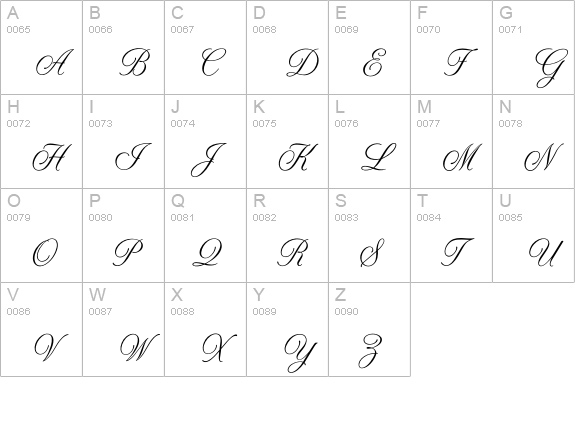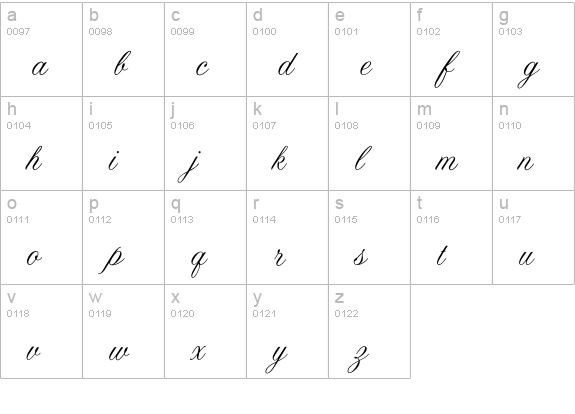
OPTIAltoGreeting-Script Font Details
Introducing OPTIAltoGreeting-Script font, a beautifully crafted typeface that exudes elegance and sophistication. This stunning script font boasts graceful curves and flowing lines, making it perfect for adding a touch of luxury to your designs. OPTIAltoGreeting-Script font is ideal for a wide range of projects, including invitations, greeting cards, branding materials, and more. Its timeless appeal and classic style will elevate any design and leave a lasting impression on your audience. Best of all, OPTIAltoGreeting-Script font is completely free to download at FontsMarket.com. Take advantage of this amazing opportunity to enhance your creative projects with this exquisite font. Download it today and let your creativity shine with OPTIAltoGreeting-Script font!